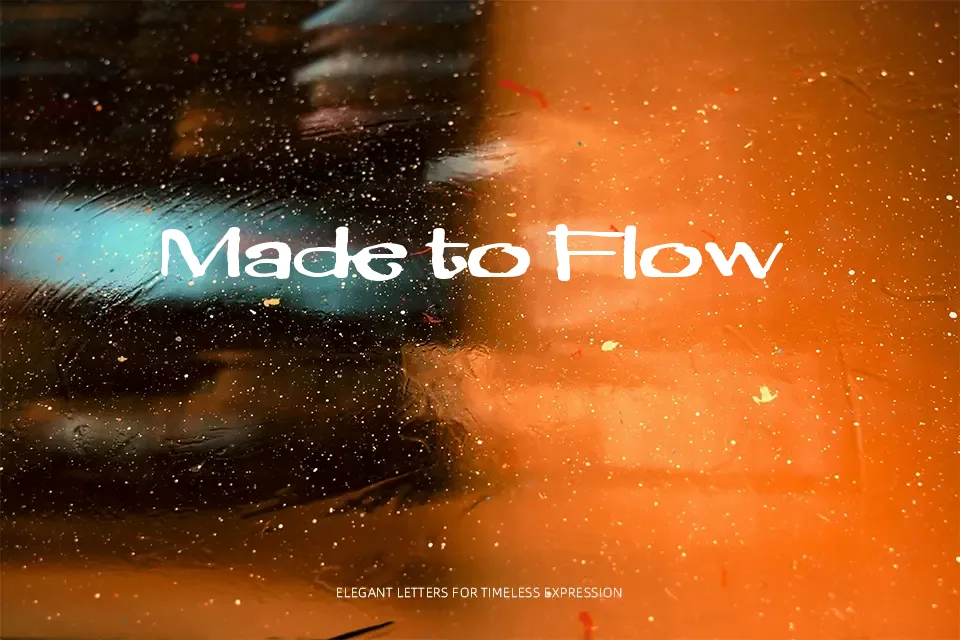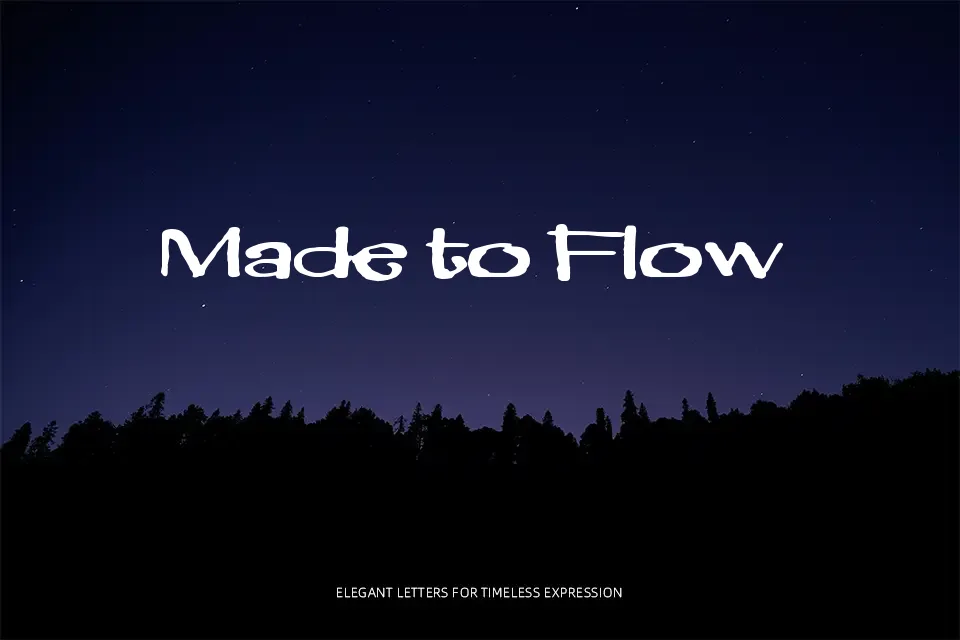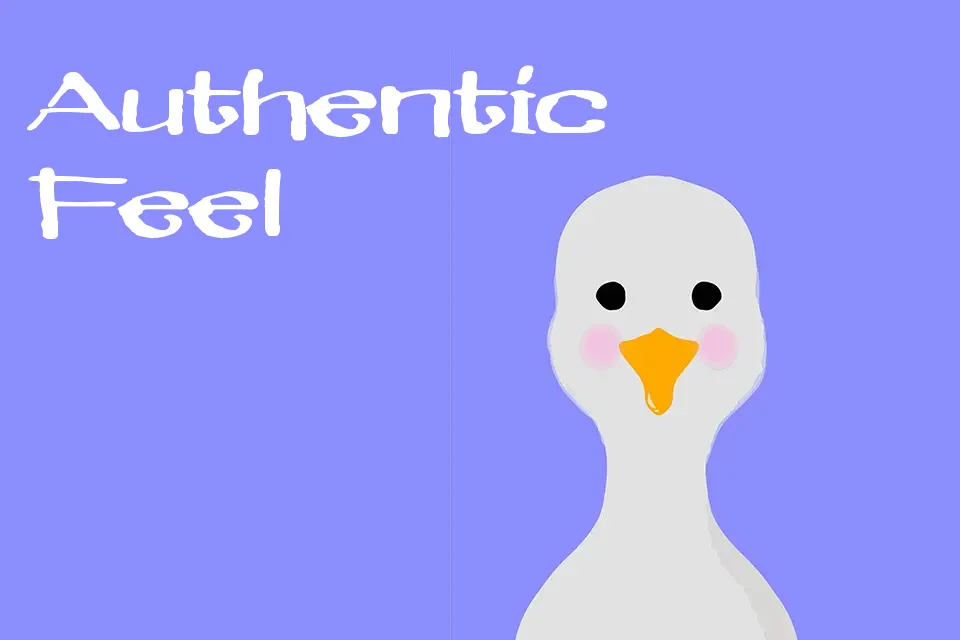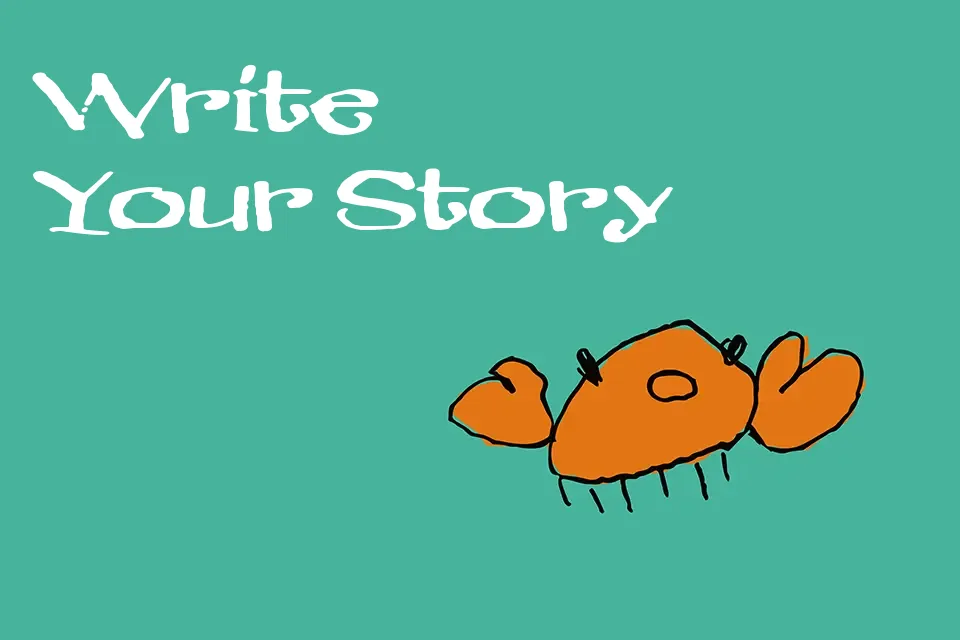
Brillianthre Font
Brillianthre is a free‑for‑personal‑use handwritten script with uneven stroke width, loose letter connections, and a relaxed baseline that gives text a spontaneous, slightly rough note‑style look. The spacing is fairly tight and some characters lean heavily, so it works best in short phrases rather than dense paragraphs. It suits casual branding, quote graphics, or poster titles where you want something informal and a bit messy rather than refined calligraphy. For long text blocks, small UI labels, or very corporate work, it can feel unprofessional and tiring to read. If you like other relaxed brush or marker scripts but want something less polished and more scribbled, this is worth testing alongside them.
casual quote graphics and posters
informal logo wordmarks and badges
playful social media text overlays
personal invitations or greeting cards
body text or long paragraphs
formal corporate branding systems
tiny UI labels or dense interfaces
highly minimal or ultra-clean layouts
Perfect for headline, logo, and poster, with a artistic and handwritten style.